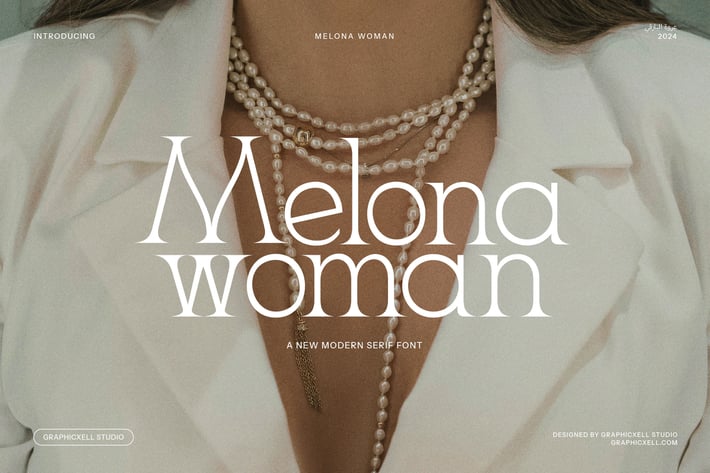
Melona Woman - Elegant Serif Font
Melona Woman is a modern and sophisticated serif font that blends timeless elegance with a vintage charm. Perfectly designed to meet the needs of contemporary branding and design projects, this font exudes a sense of refinement and style. Whether you are creating a logo, branding materials, or working on a website design, Melona Woman adds a touch of luxury and class.
This elegant serif font features beautiful, well-crafted letterforms that make it an ideal choice for high-end projects such as boutique branding, product packaging, and fashion design. Its distinctive look and graceful curves also make it suitable for magazine layouts, advertisements, and editorial design, where readability and visual appeal are paramount.
Melona Woman’s versatility allows it to adapt seamlessly to various design needs, from modern web designs to vintage-inspired creations. The font’s timeless aesthetic ensures it works well for a range of industries, including beauty, food, lifestyle, and more. It’s particularly well-suited for high-end product branding, creating a luxurious yet accessible visual identity for your brand.
Designed with both beauty and functionality in mind, Melona Woman offers excellent legibility, making it the perfect choice for both print and digital applications. Whether you're designing a logo, crafting promotional materials, or building a unique online presence, this font will elevate your project with its chic, sophisticated, and versatile style. Make a lasting impression with Melona Woman, the ideal font for modern and vintage-inspired designs alike.
Melona Woman is a modern and sophisticated serif font that blends timeless elegance with a vintage charm. Perfectly designed to meet the needs of contemporary branding and design projects, this font exudes a sense of refinement and style. Whether you are creating a logo, branding materials, or working on a website design, Melona Woman adds a touch of luxury and class.
This elegant serif font features beautiful, well-crafted letterforms that make it an ideal choice for high-end projects such as boutique branding, product packaging, and fashion design. Its distinctive look and graceful curves also make it suitable for magazine layouts, advertisements, and editorial design, where readability and visual appeal are paramount.
Melona Woman’s versatility allows it to adapt seamlessly to various design needs, from modern web designs to vintage-inspired creations. The font’s timeless aesthetic ensures it works well for a range of industries, including beauty, food, lifestyle, and more. It’s particularly well-suited for high-end product branding, creating a luxurious yet accessible visual identity for your brand.
Designed with both beauty and functionality in mind, Melona Woman offers excellent legibility, making it the perfect choice for both print and digital applications. Whether you're designing a logo, crafting promotional materials, or building a unique online presence, this font will elevate your project with its chic, sophisticated, and versatile style. Make a lasting impression with Melona Woman, the ideal font for modern and vintage-inspired designs alike.